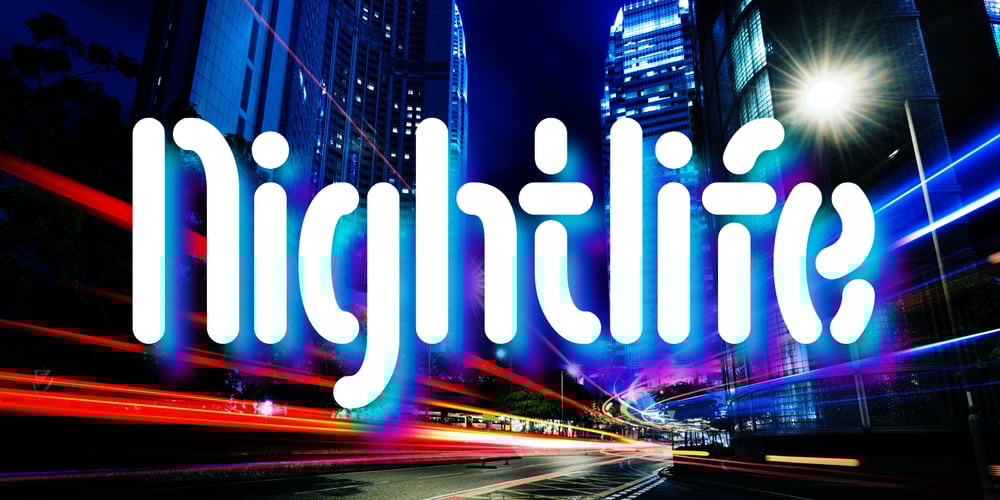
Nightlife Font Family was designed by Keith Tricker and published by Studio K. Nightlife contains 2 styles and family package options. Nightlife is a neon style font family reminiscent of Broadway, Hollywood, Las Vegas and the bright lights and razzamatazz of show business. Not that I want to typecast it. It’s a fluid type style that is equally at home on food and drink, confectionery and fmcg packaging: my original working title for it was ‘Jelly Bean’, for reasons that should be obvious! (Note to designers: to create the neon glow effect in Photoshop, make a duplicate of the type layer, rasterize it and add a Gaussian blur filter of approx. 50%. Then bring the original type layer to the top and offset it as required).